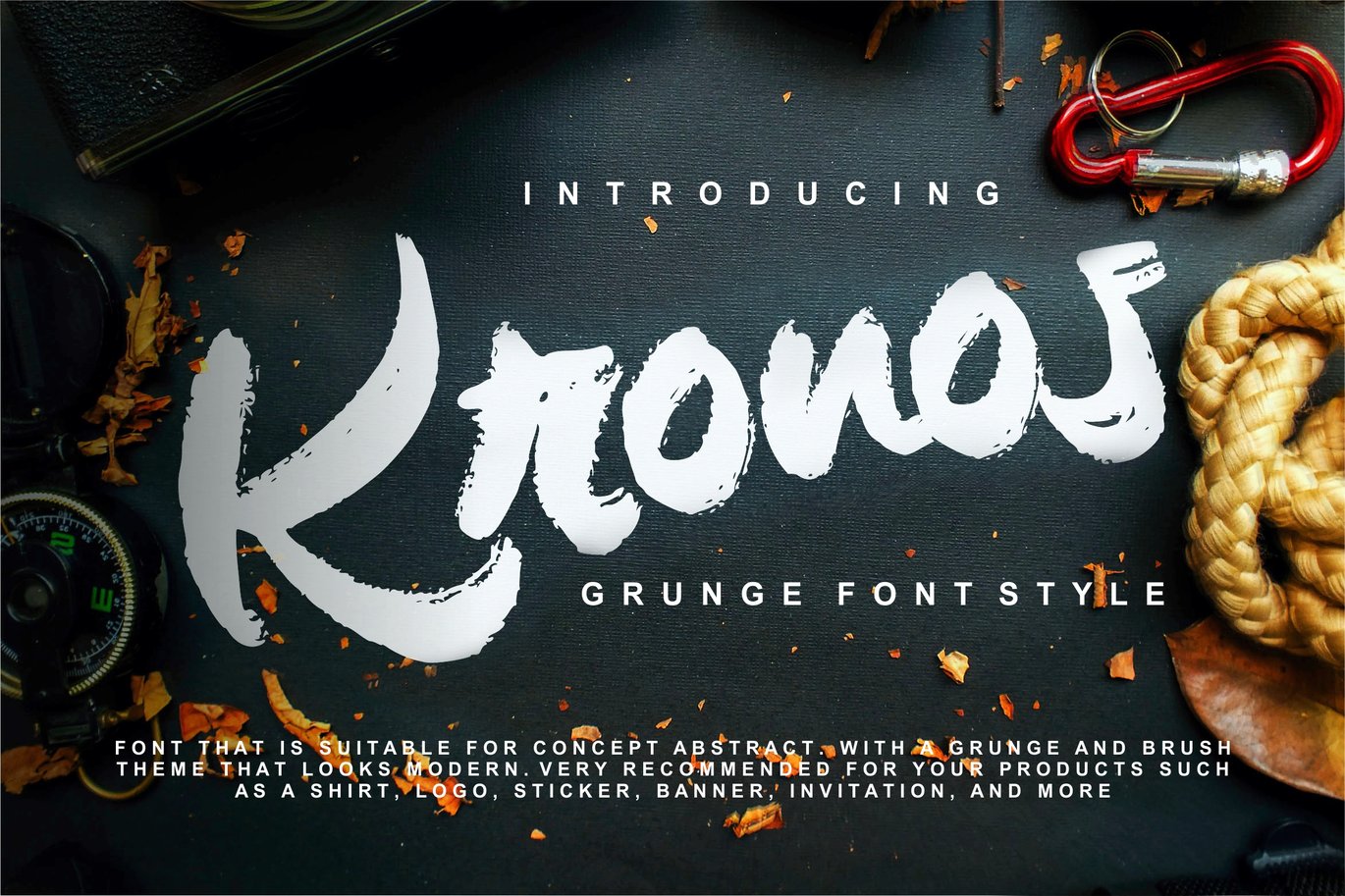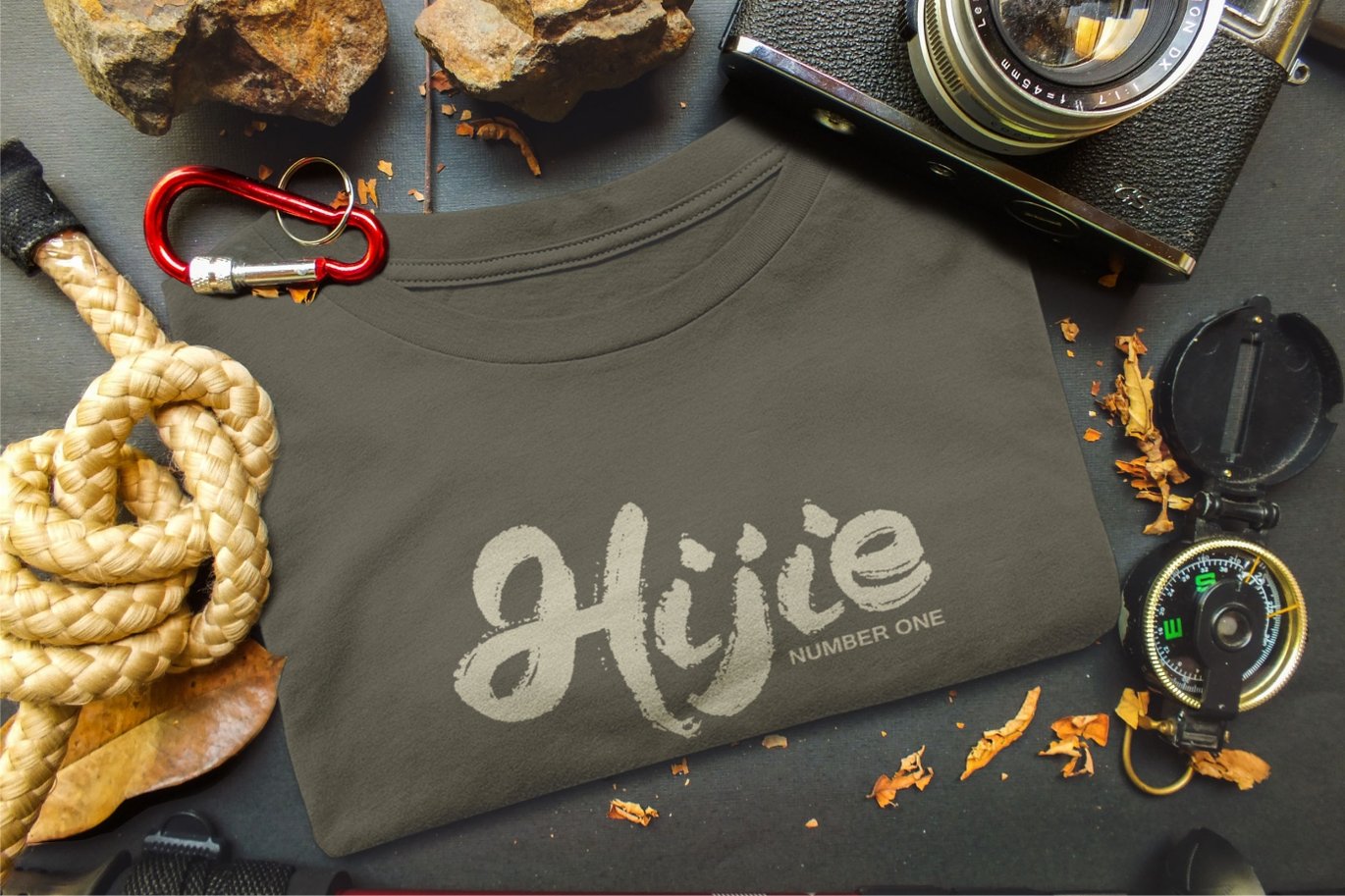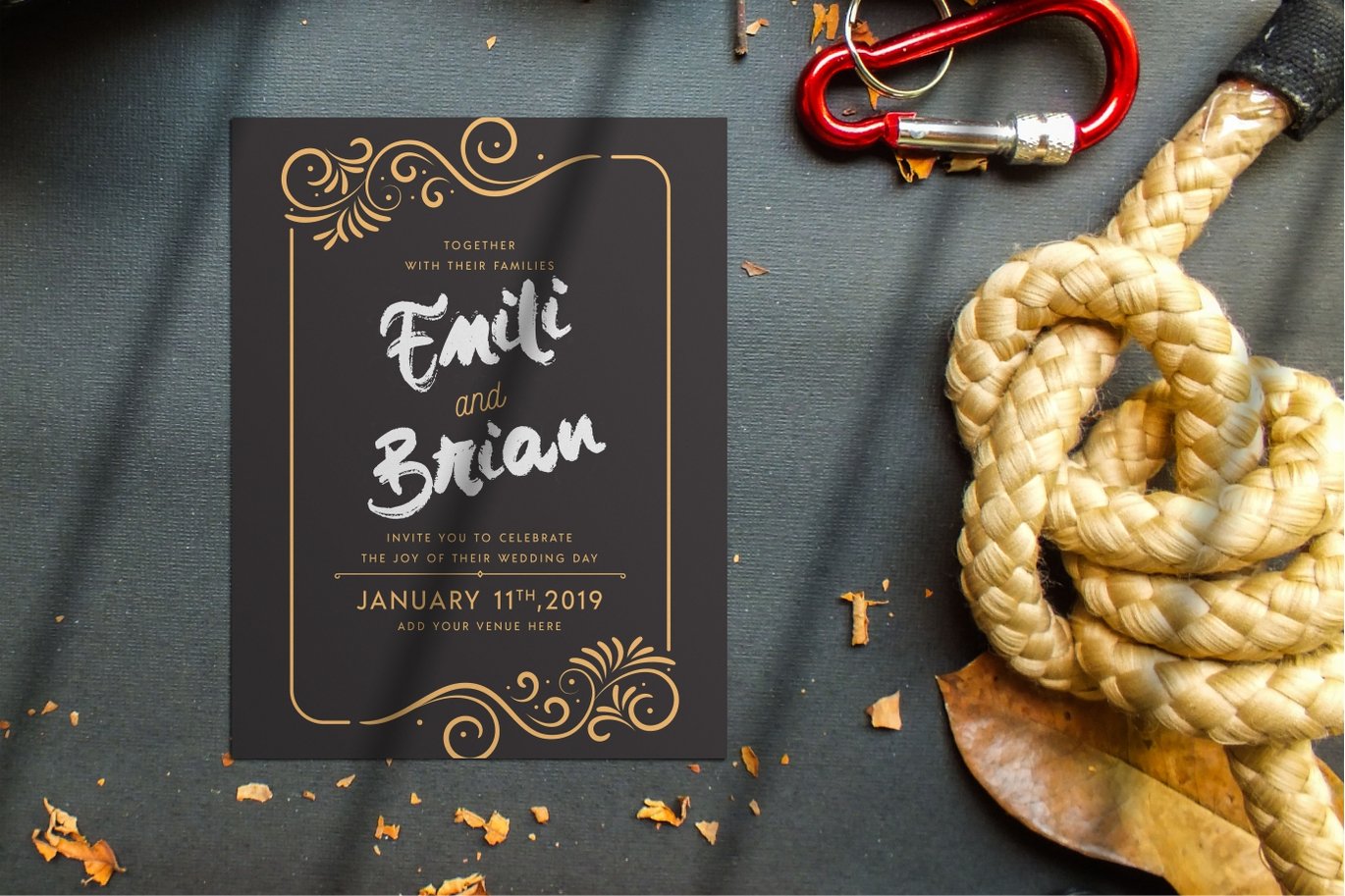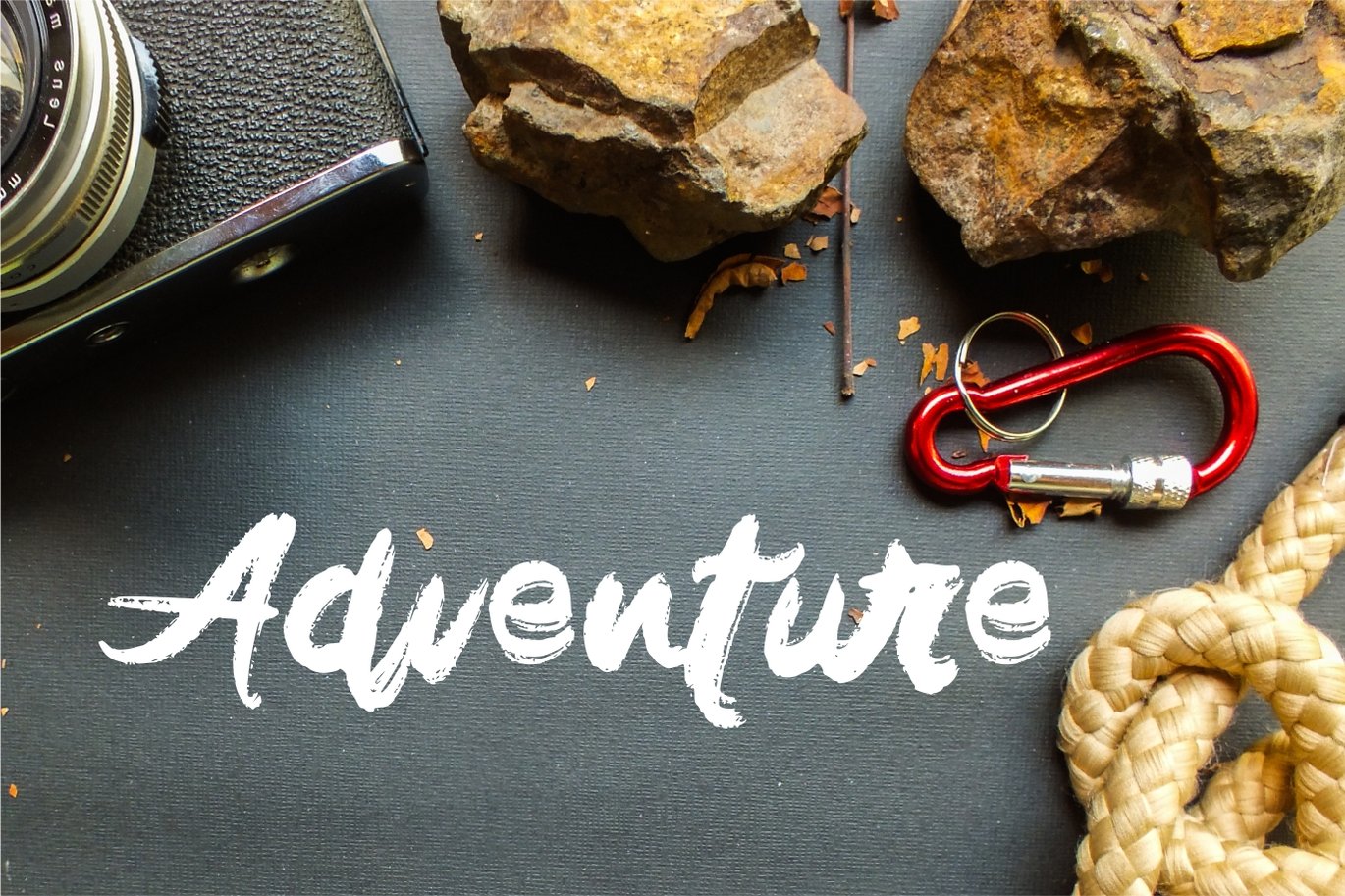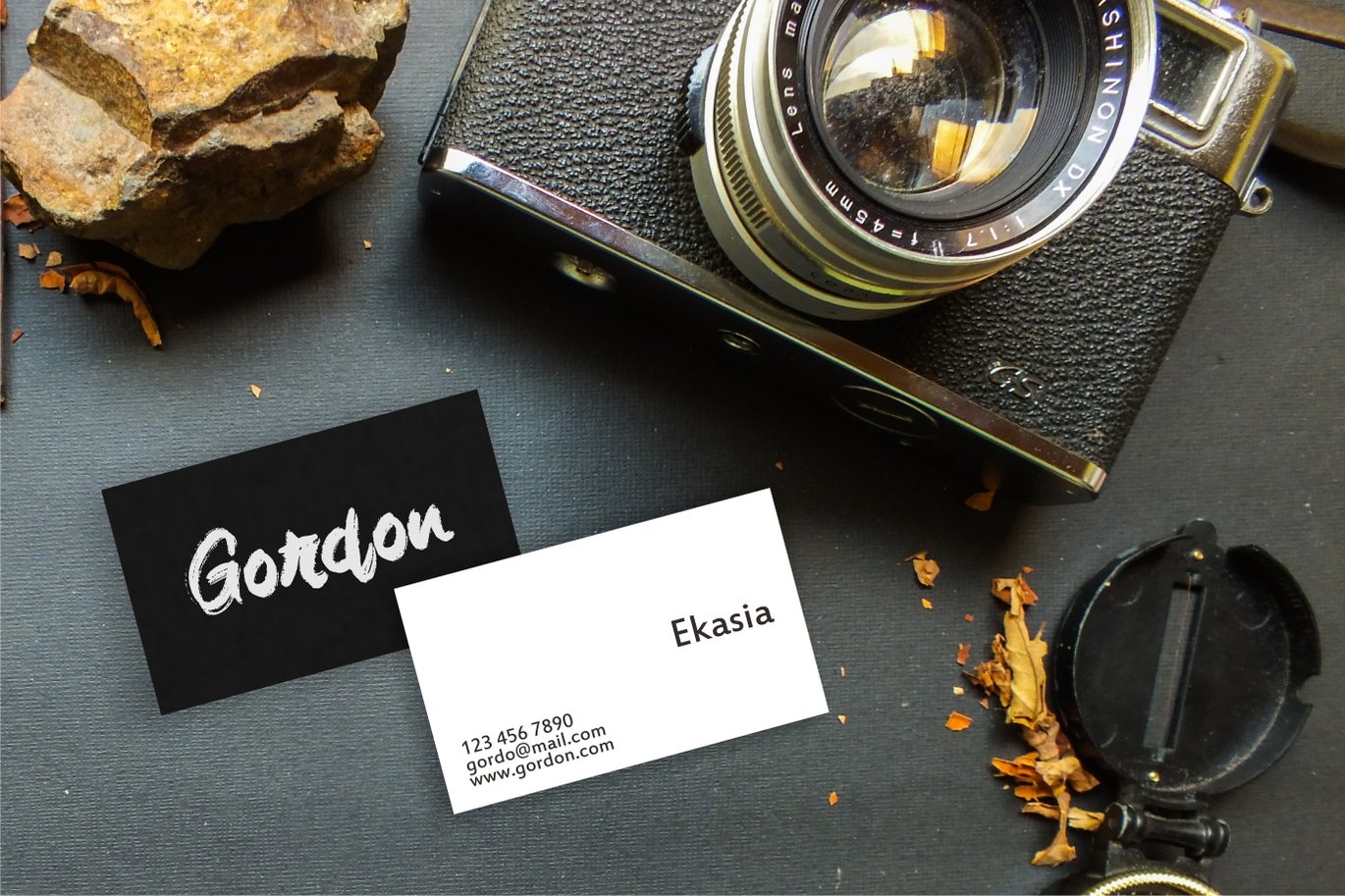
Kronos | Grunge Font Style
Kronos | Grunge Font Style with a calligraphy style, So beautiful on invitation like greeting cards, branding materials, business cards, quotes, posters, and more!